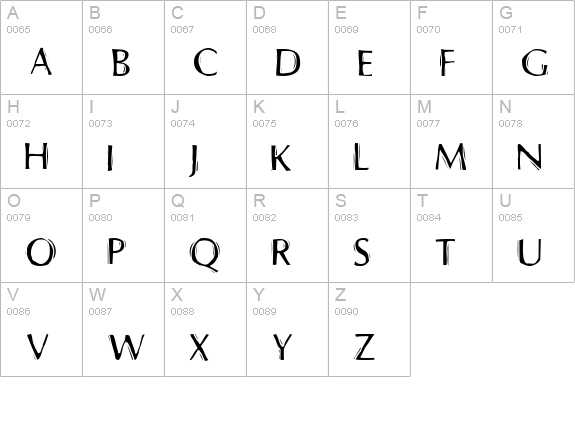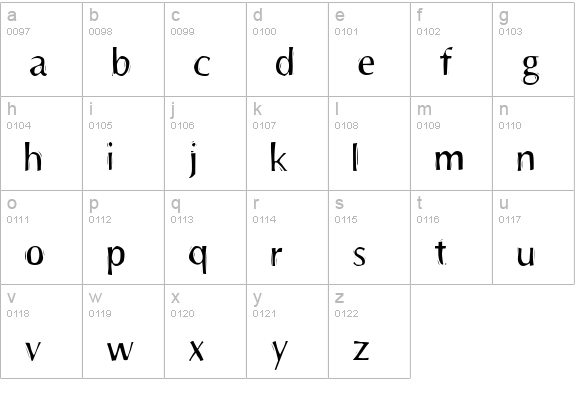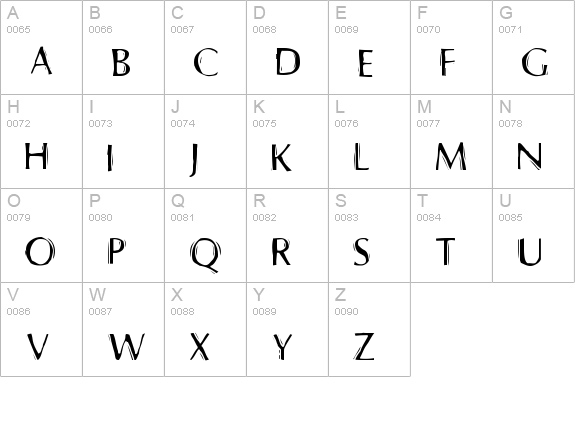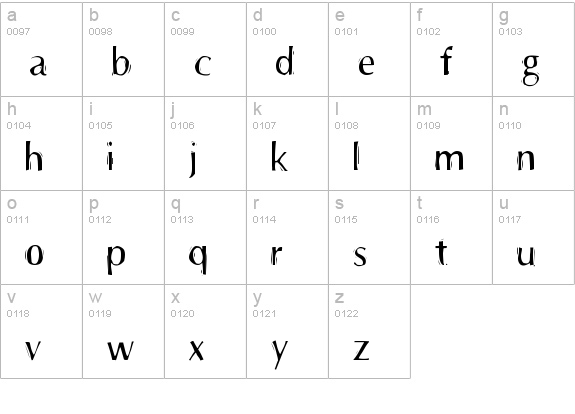
P22Prehistoric Pen Font Details
P22Prehistoric Pen font, a captivating typographic creation, transports you back to the ancient times when cavemen used their primitive tools to leave their marks on cave walls. This unique typeface effortlessly captures the essence of prehistoric artistry, with its rugged and untamed strokes that evoke a sense of raw creativity and primal expression. Designed with meticulous attention to detail, P22Prehistoric Pen font brings forth a truly authentic and immersive experience. Each letter is crafted to mimic the irregularities and imperfections found in ancient cave paintings, making it the perfect choice for projects that require a touch of antiquity and a dash of adventure. What makes P22Prehistoric Pen font even more remarkable is that it is freely available to download at FontsMarket.com. This means that you can effortlessly add this captivating font to your design toolkit without any cost. Whether you are working on a historical project, creating captivating headlines, or simply exploring the boundaries of typographic expression, P22Prehistoric Pen font is the ideal choice to bring a touch of the past into your work. Embrace the untamed spirit of our ancestors and let P22Prehistoric Pen font guide your creativity. With its freely accessible availability and captivating aesthetic, this font is sure to leave a lasting impression on your audience. Unleash your inner caveman and embark on a typographic journey like no other with P22Prehistoric Pen font.